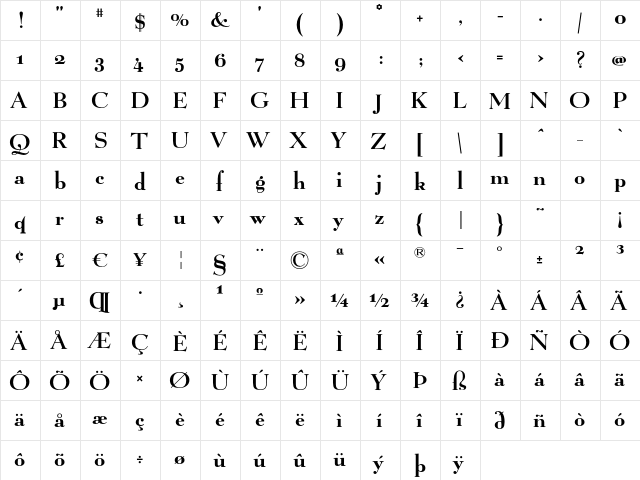
Lucianard Regular
Design Context for Lucianard Typeface
Lucianard is a composed and adaptable typeface that performs quietly and consistently across a wide range of design contexts.